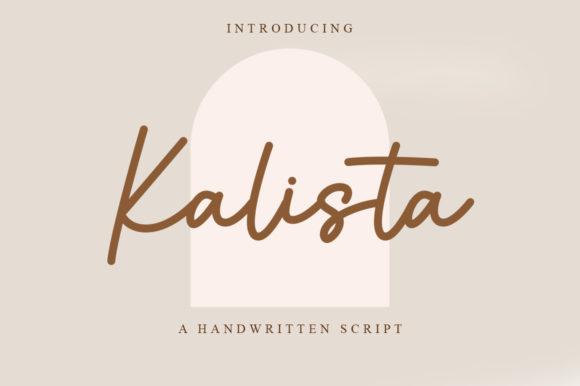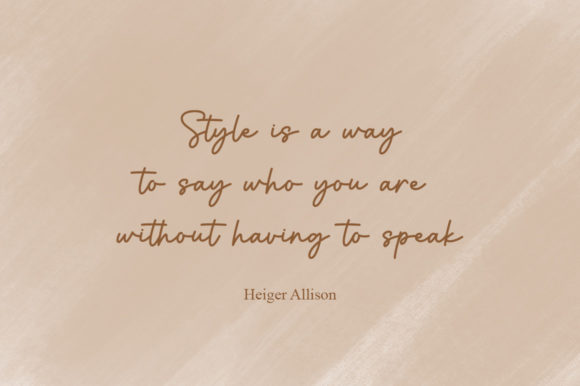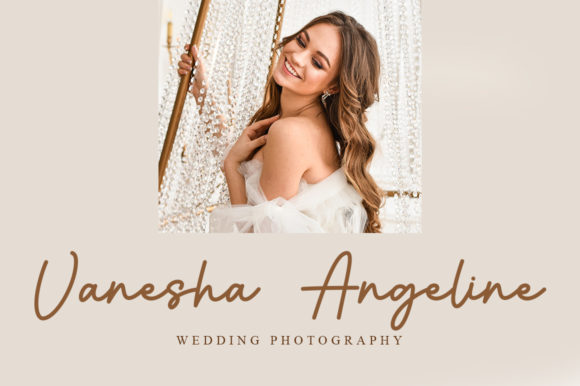
About Kalista Font
“Kalista” is a dainty and flowing handwritten font that exudes charm and elegance. With its graceful strokes and delicate curves, this font adds a touch of sweetness and joy to any design project. It is particularly well-suited for creating wedding invitations, greeting cards, and other designs that require a romantic and personalized touch.
The flowing nature of “Kalista” creates a sense of movement and grace, making it visually appealing and captivating. Each letter is carefully crafted to maintain a balanced and harmonious look, ensuring that every word written with this font has a beautiful and captivating appearance.
The romantic and personalized touch of “Kalista” makes it an excellent choice for wedding invitations. It adds an element of elegance and sophistication, setting the tone for a memorable and special event. Additionally, it can be used for other occasions such as anniversary cards, love letters, or any design that aims to convey a heartfelt message.
The versatility of “Kalista” extends beyond wedding-related designs. It can be used for various creative projects that require a delicate and flowing handwritten font. From branding materials to social media posts, this font adds a touch of charm and uniqueness to your designs.
Whether you’re designing a card for a loved one or creating a brand identity with a personalized touch, “Kalista” is a wonderful choice. Its dainty and flowing nature captures the essence of romance and joy, making it the perfect font to add a touch of elegance and charm to your projects.